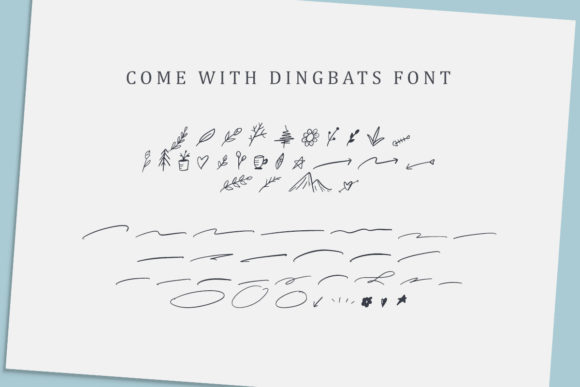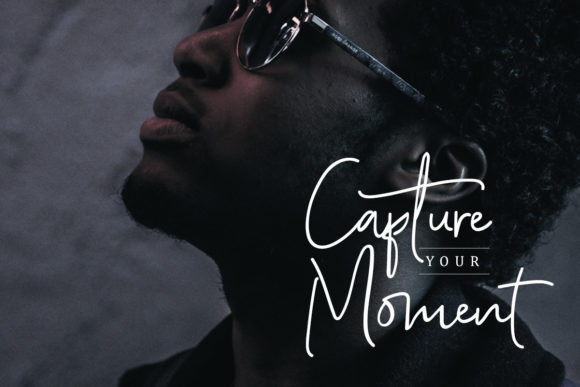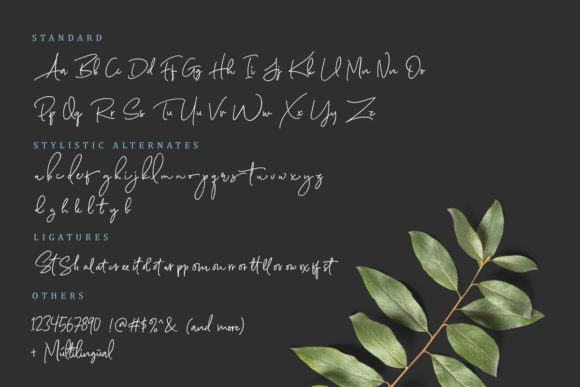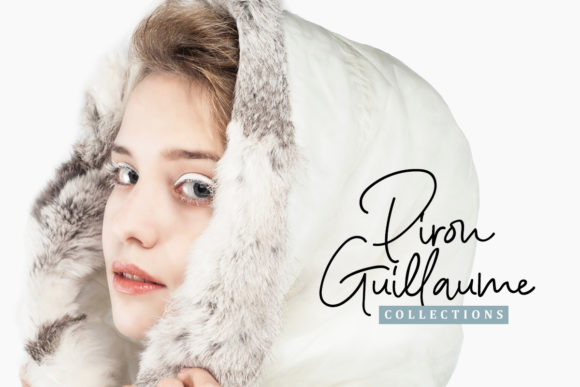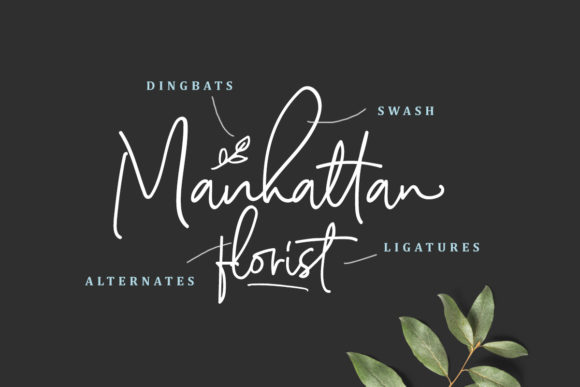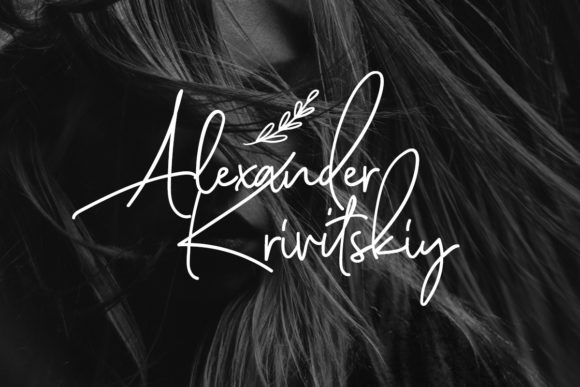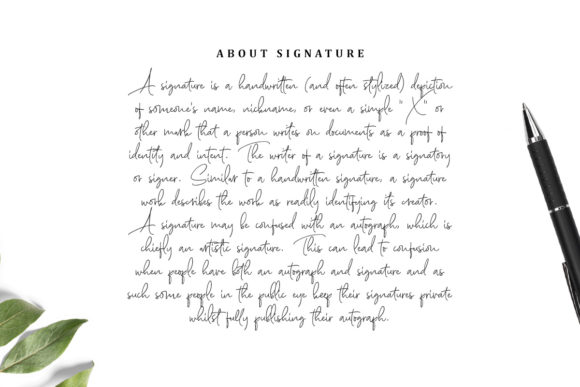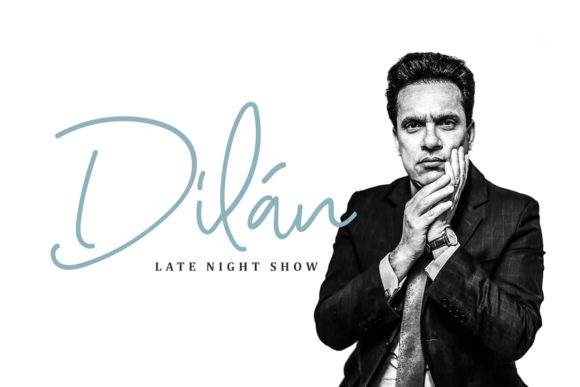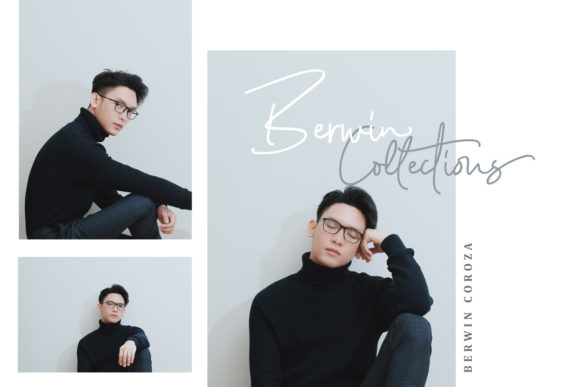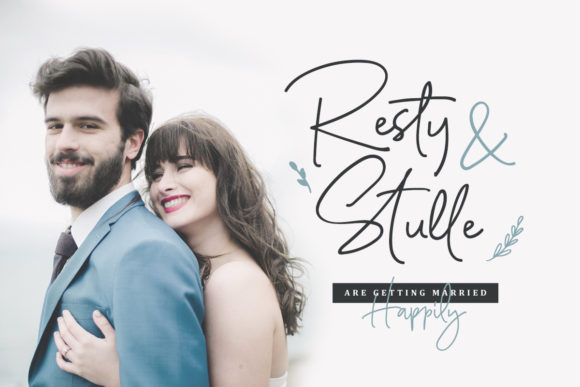
Scarlette Script Font
About Scarlette Script Font
The Scarlette is a natural signature script with lots of ligatures. Also included is a doodle font which you can use to make a logo for branding, beautiful fashion designs, suitable for wedding invitations, or handwritten quotes.